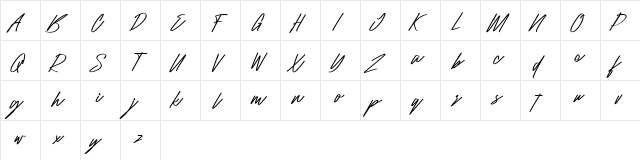
Raidden Italic
Design Context for Raidden Typeface
Raidden is a composed and adaptable typeface that performs quietly and consistently across a wide range of design contexts. Its italic angle brings a sense of urgency and motion to the letterforms.
Pro Tip: Use Raidden for emphasis, pull quotes, and subheadings where its slanted energy can add rhythm to the layout.